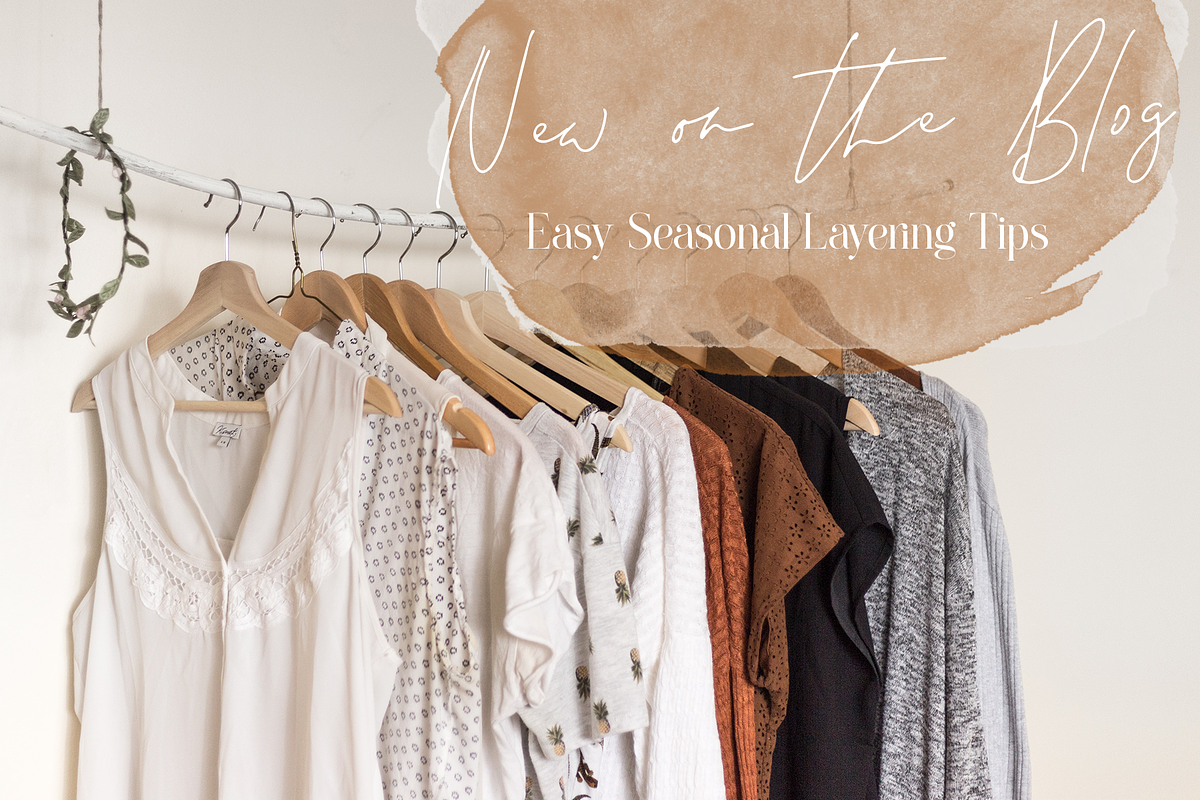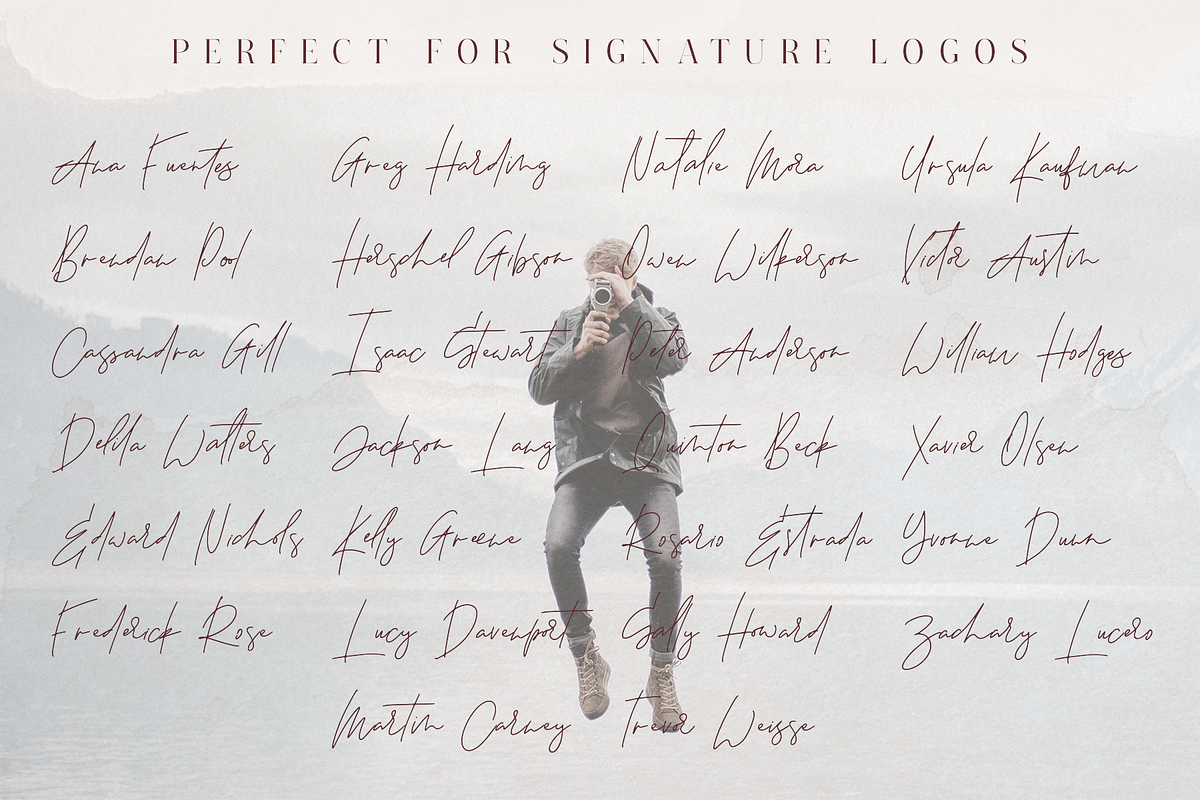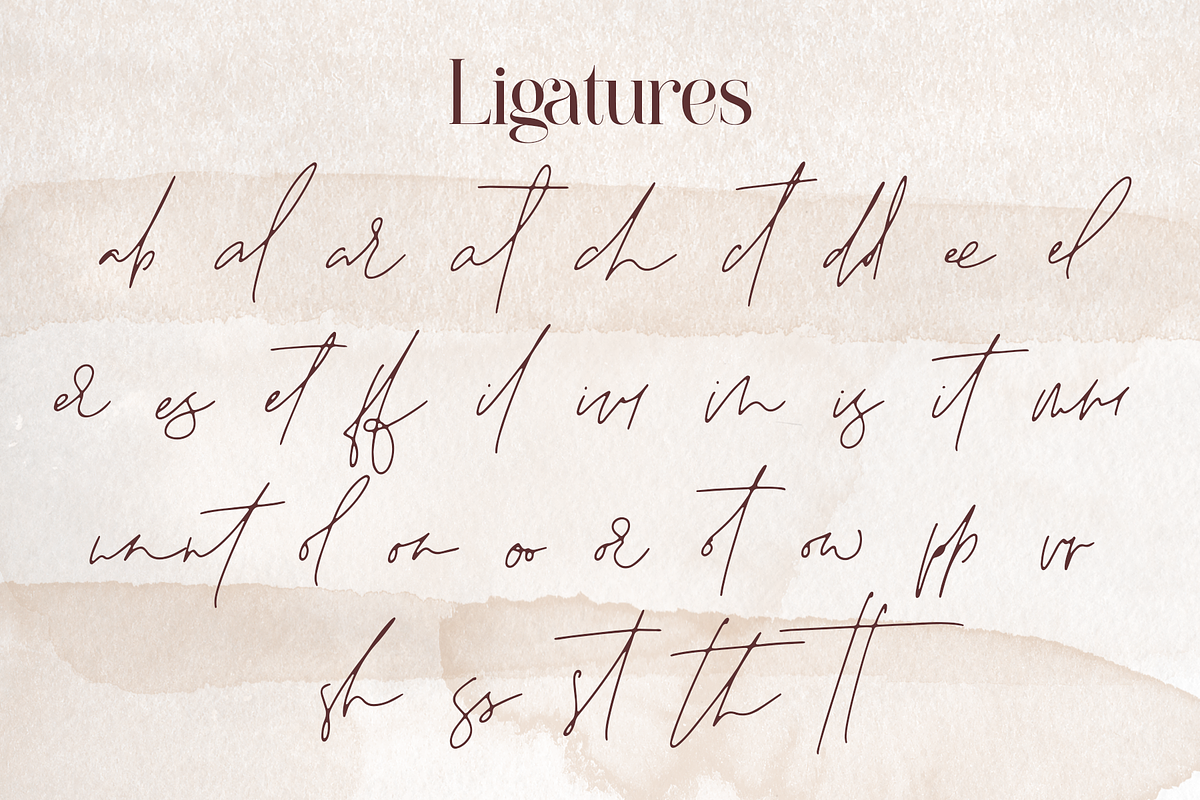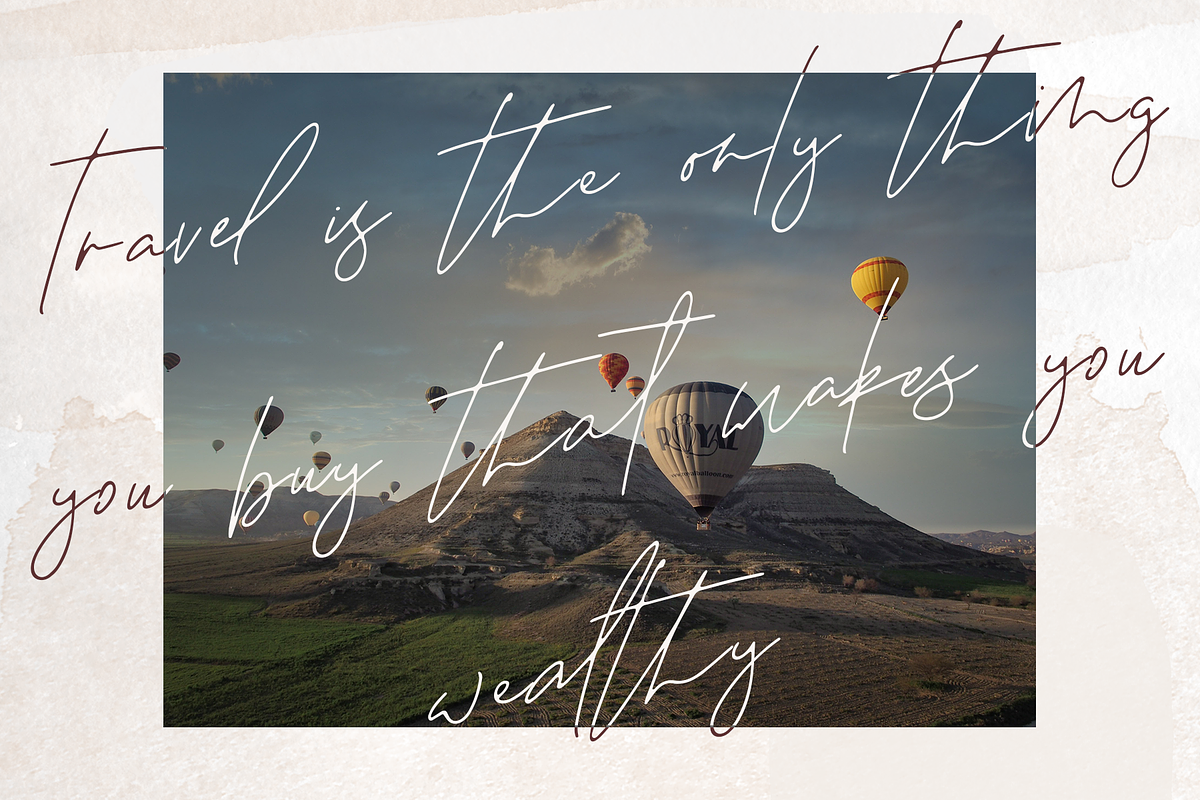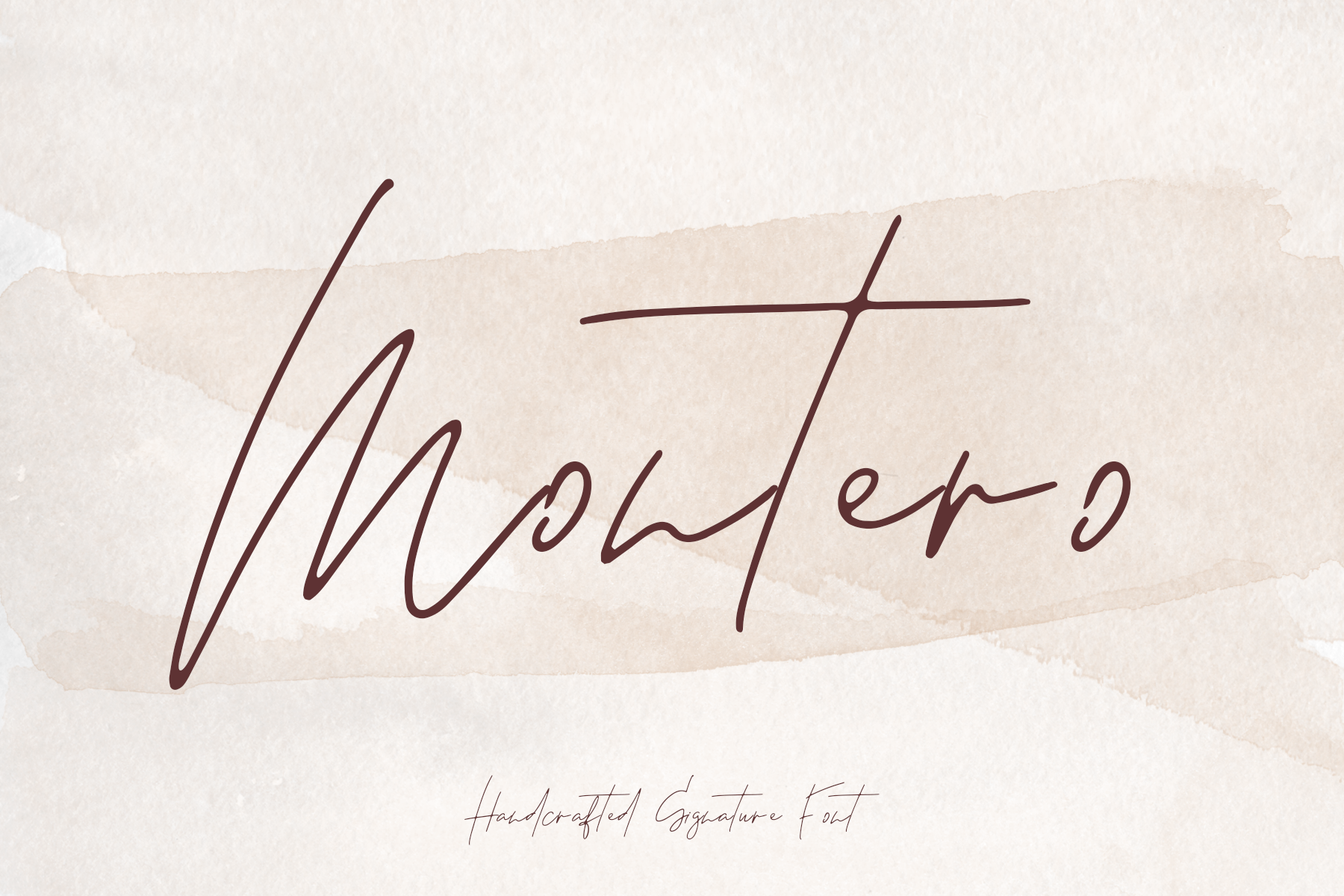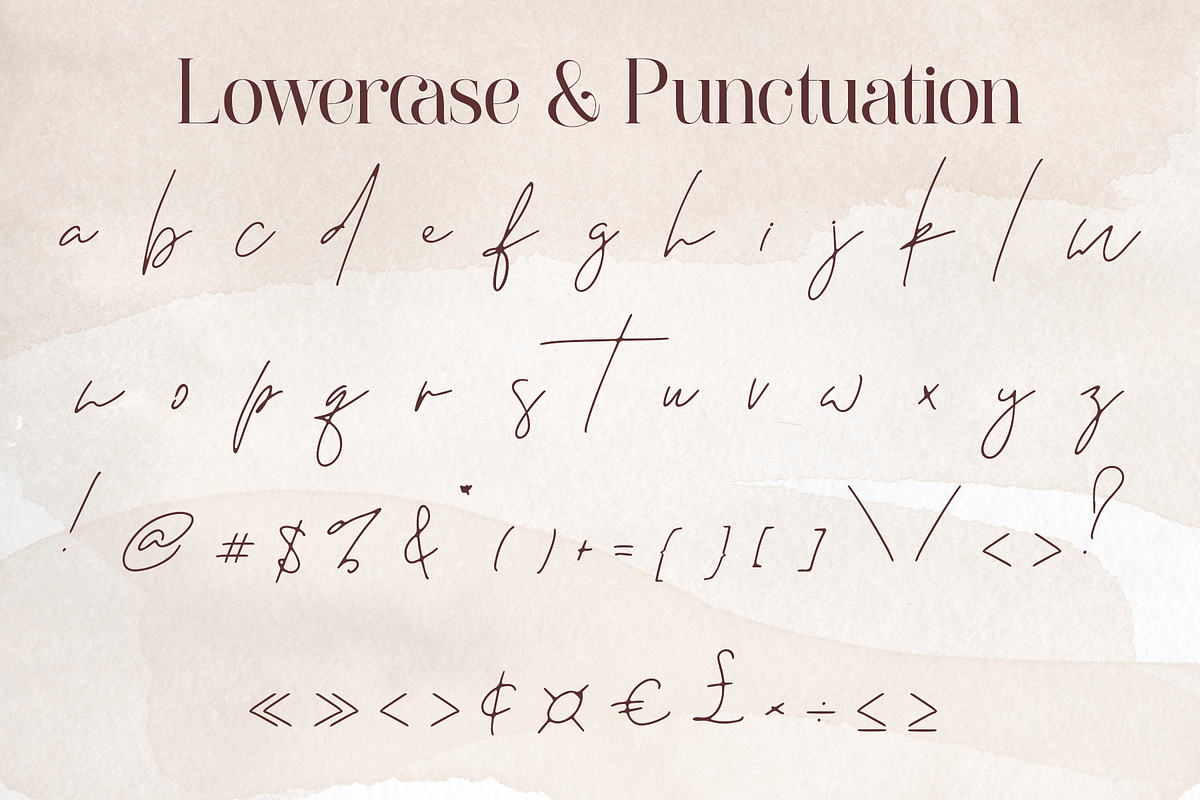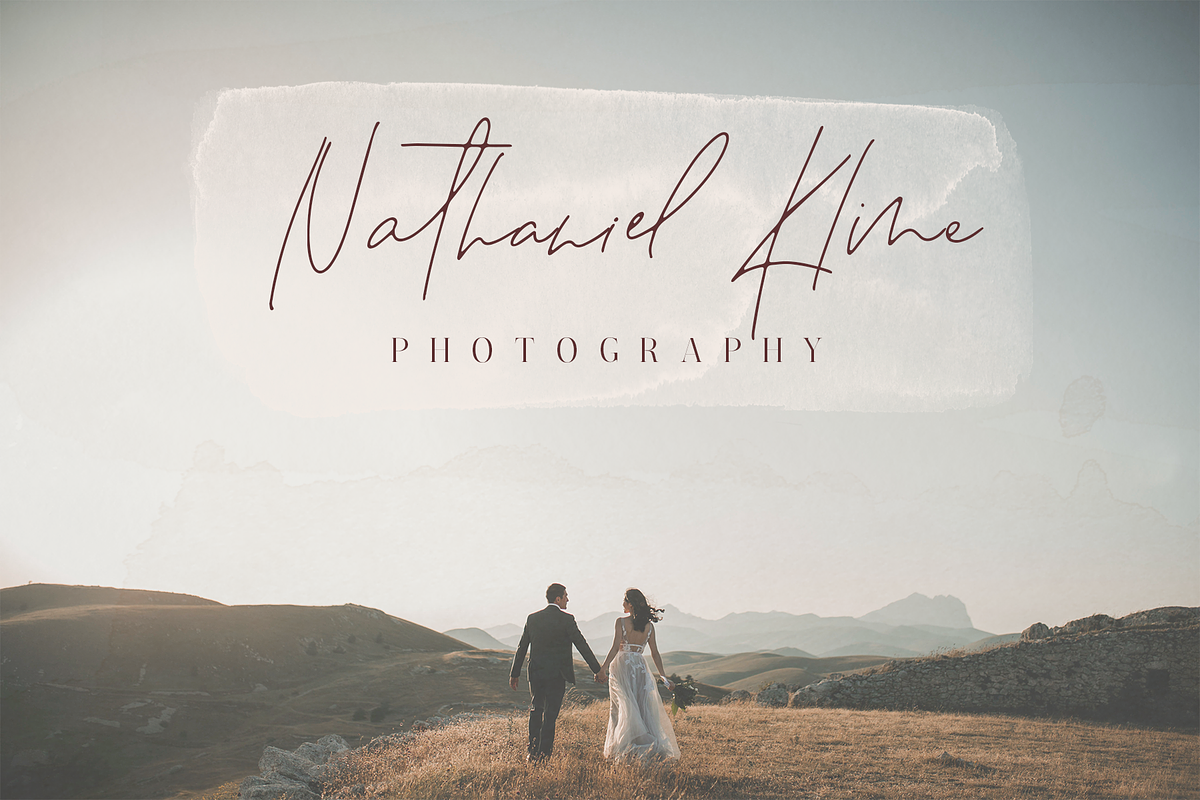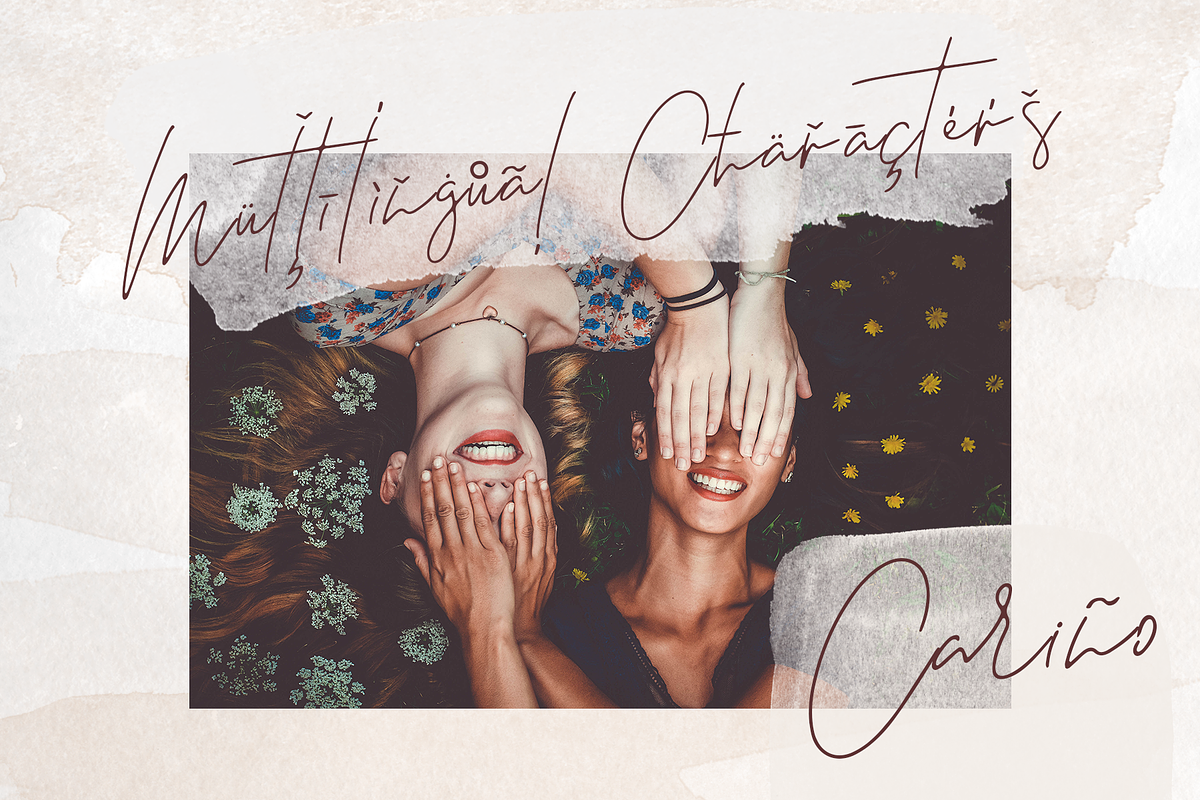
Montero - Signature Script Font
Montero is a hand drawn monoline signature script. This font is perfect for your next project, whether you’re working on signature style logos, promoting your blog or website or creating invitations & cards.
This font features standard uppercase, lowercase, numbers & punctuation, plus multilingual characters & a large selection of ligatures for achieving a natural flowing hand drawn look.